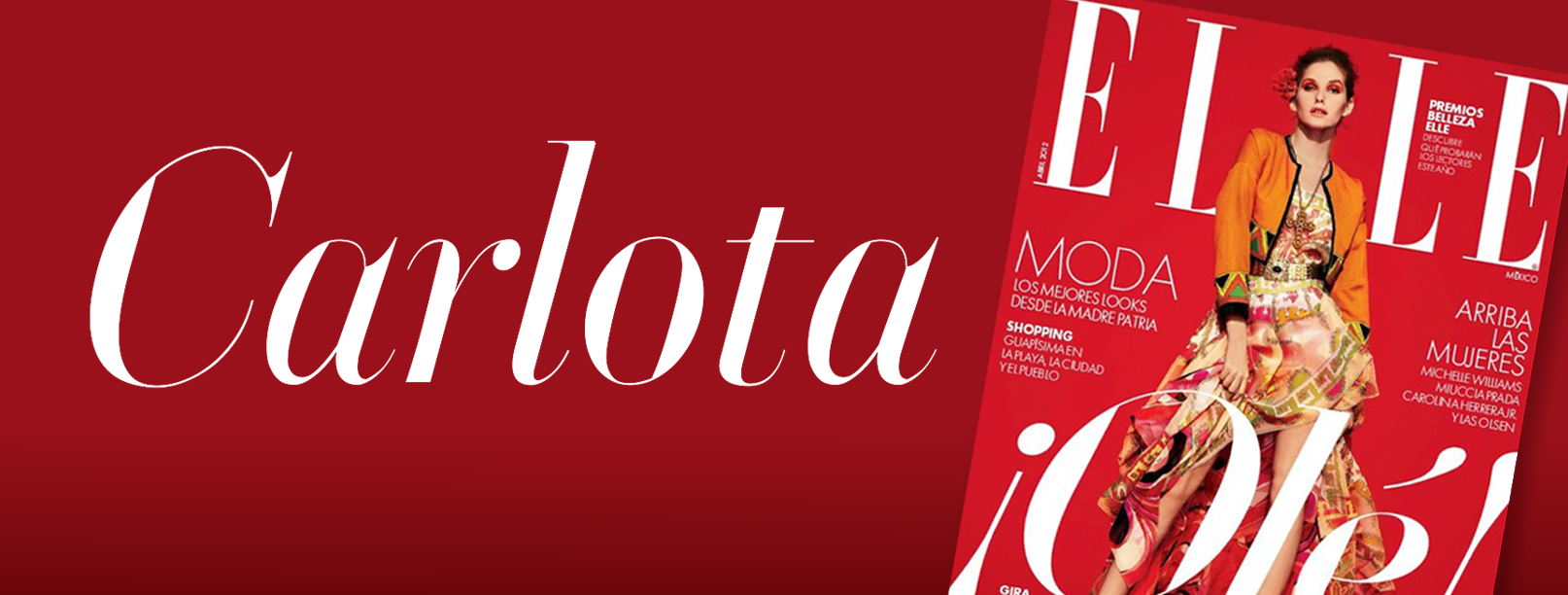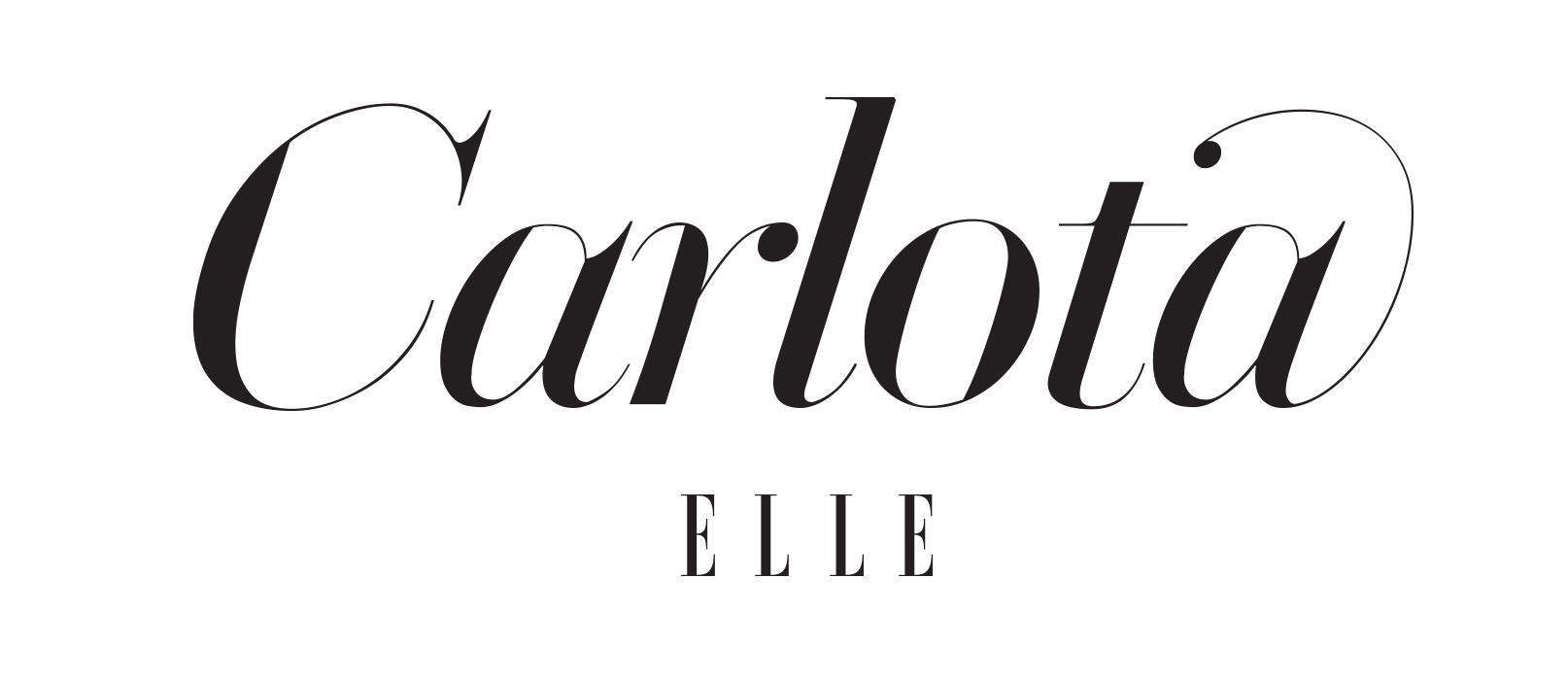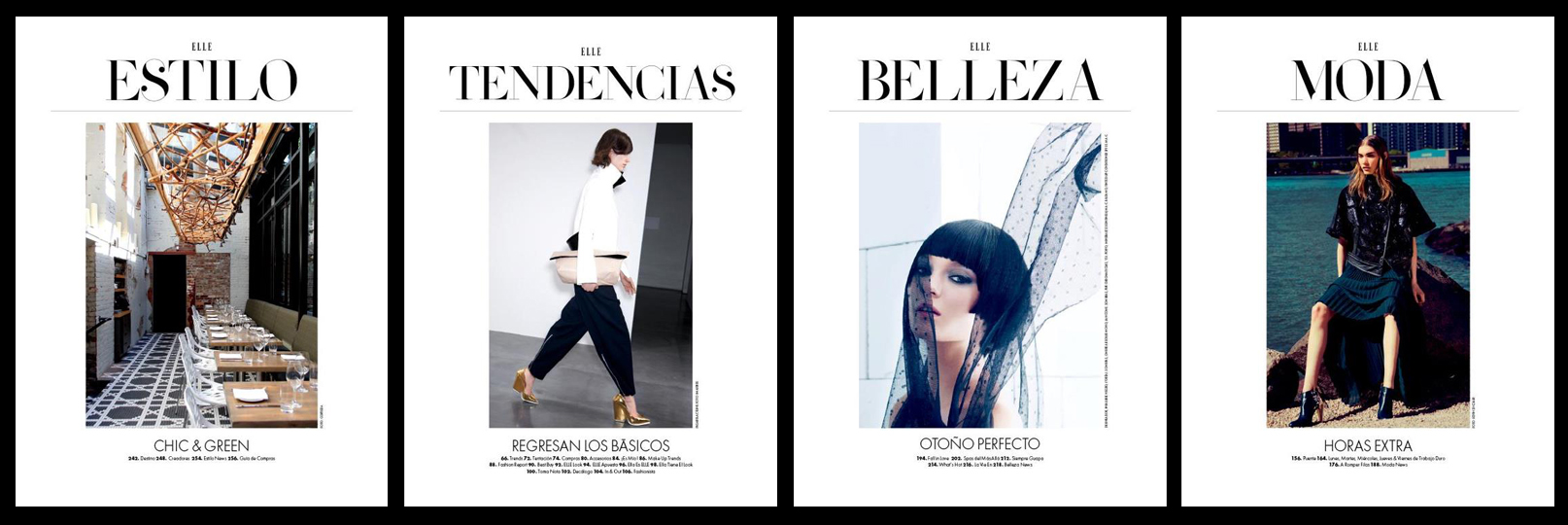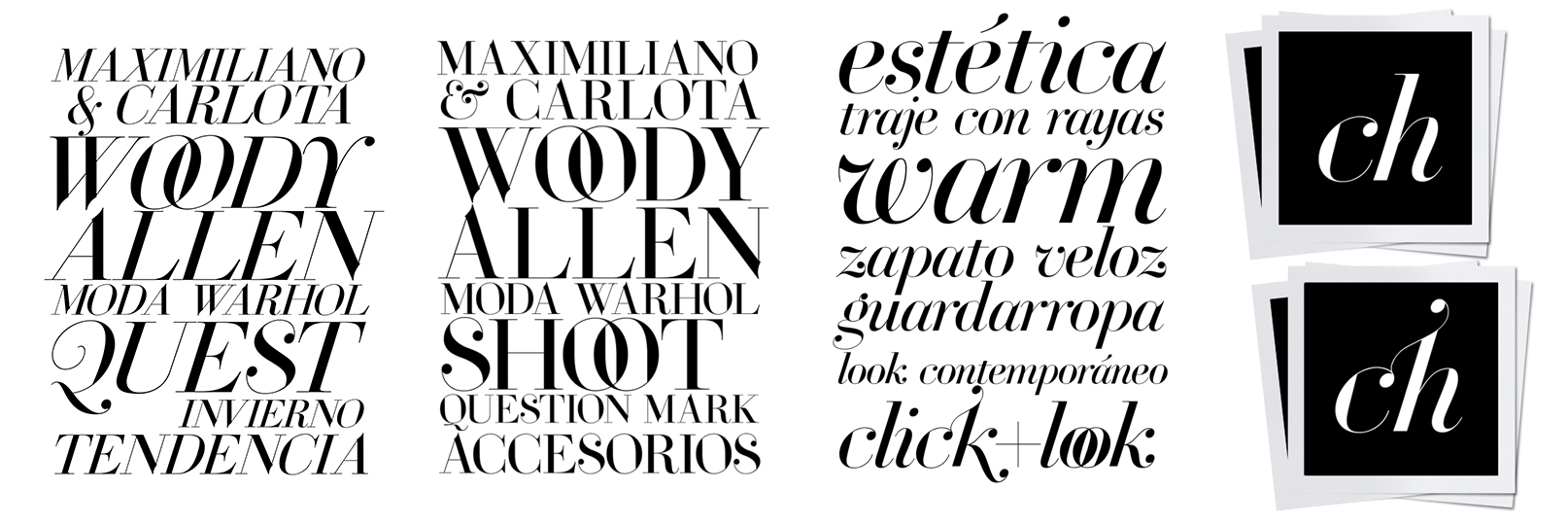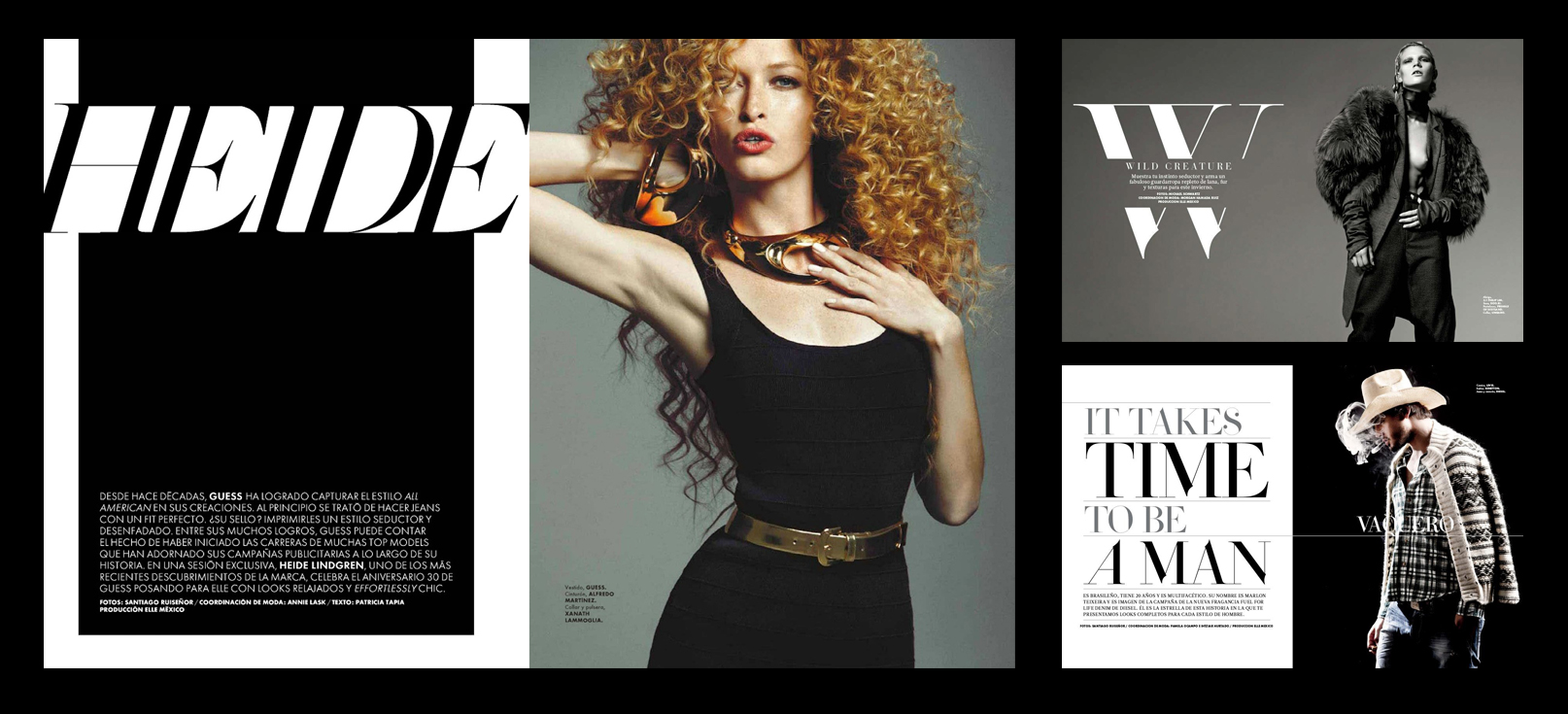
Carlota Elle México
- year
- 2009
-
- Designer
- Oscar Yáñez
Carlota is a custom-designed typeface created by Oscar Yáñez. The typographic design was commissioned by ELLE magazine, Mexican edition, for its 2009 redesign. The typeface was commissioned to be used in headlines and it has two styles: Roman and Italic.
The brief, led by art director Ernesto Moncada, called for a typeface with extremely fine serifs—an attribute he could not find in existing commercial options. He also sought a graphic solution with a strong personality, rooted in the Didone (Modern) tradition and defined by high contrast.
These parameters guided the development of a typeface with refined, whimsical details while maintaining overall balance and harmony, ensuring both elegance and editorial impact.
Ultimately, Carlota became a defining typographic element of the magazine’s redesign, reinforcing its sophistication and establishing a bold, recognizable presence across its pages.